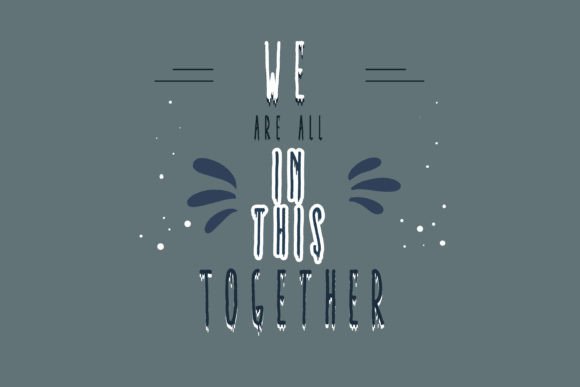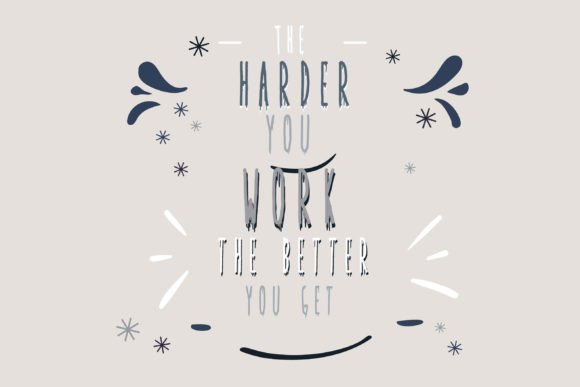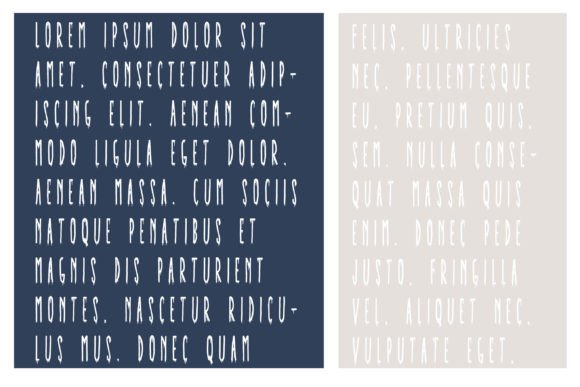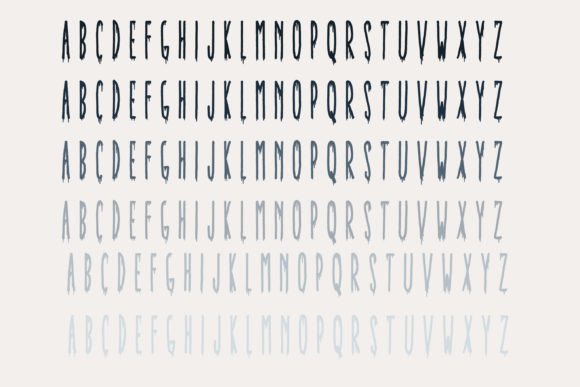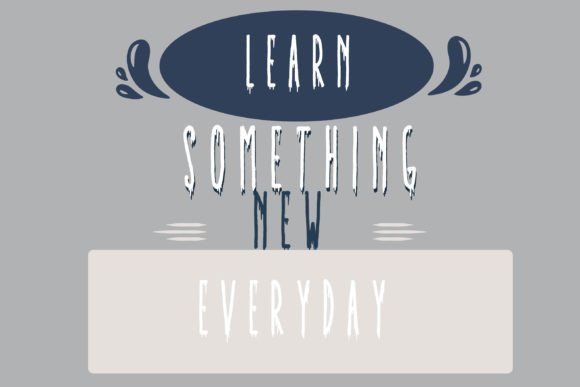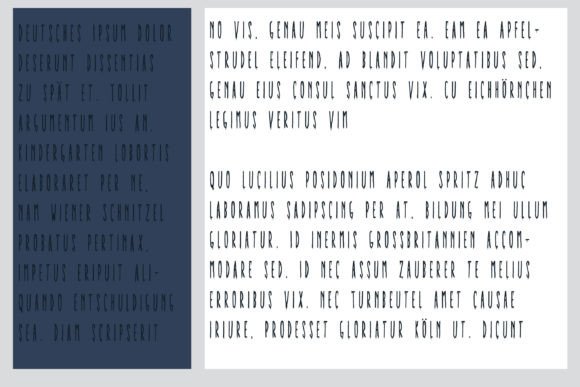
The Creepy Charm of Black Death Font: A Designer’s Delight
I still remember the project that led me to discover the infamous Black Death Font. I was working on a spooky invitation design for a friend’s Halloween party, and I was determined to find the perfect font to set the tone. As I scrolled through font after font, nothing seemed quite right – until I stumbled upon Black Death Font. Its drippy, oozy, and creepy hand-printed style instantly captured the essence of the season, and I knew I had found the one.
So, what makes Black Death Font so special? Let’s dive into the good stuff and a few quirks I’ve discovered.
• ✨ Unique, hand-crafted style that’s perfect for creating spooky or eerie designs
• ✅ All-cap font that’s bold and attention-grabbing
• ✅ Great for invitations, greeting cards, and other creative projects
While Black Death Font is an amazing addition to any design project, there are a few things to keep in mind:
• ⚠️ As a hand-crafted font, it may not be suitable for very formal or professional designs
• 🤔 Some letters may appear a bit irregular or imperfect, which can add to the charm but might not be ideal for every project
Exploring Alternatives: Similar Fonts to Black Death Font
While Black Death Font is undoubtedly unique, there are other fonts that share similar characteristics. Here are a few alternatives you might enjoy:
• Creepster: A creepy, handwritten font with a similar feel to Black Death Font. Use it for spooky designs, horror-themed projects, or eerie invitations.
• Bebas Neue: A bold, modern font with a similar hand-crafted feel. Use it for bold statements, eye-catching headlines, or edgy designs.
• Halloween Font: A spooky, all-cap font perfect for Halloween-themed designs. Use it for invitations, party decorations, or other seasonal projects.
• Drip: A drippy, handwritten font with a similar feel to Black Death Font. Use it for street art-inspired designs, graffiti-style projects, or edgy typography.
The Story Behind Black Death Font
While the true origins of Black Death Font are shrouded in mystery, it’s said to have been inspired by ancient, mystical texts and the eerie atmosphere of abandoned cemeteries. The font’s creator aimed to capture the essence of the macabre and the unknown, resulting in a font that’s both creepy and captivating.
Q: What is Black Death Font?
A: Black Death Font is a hand-crafted, all-cap font with a drippy, oozy, and creepy style. It’s perfect for spooky designs, invitations, and other creative projects.